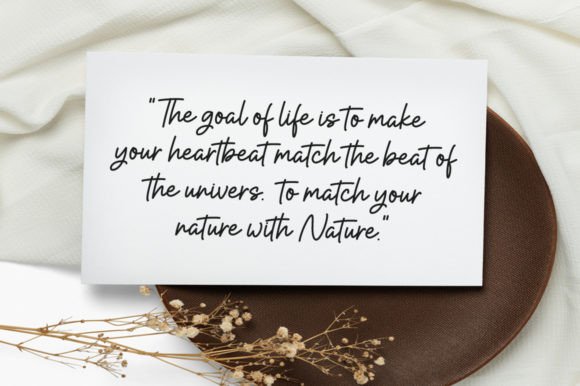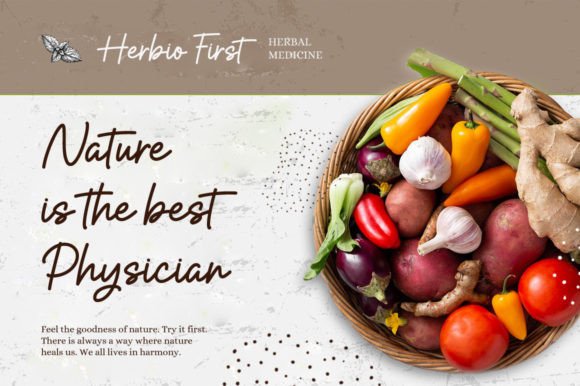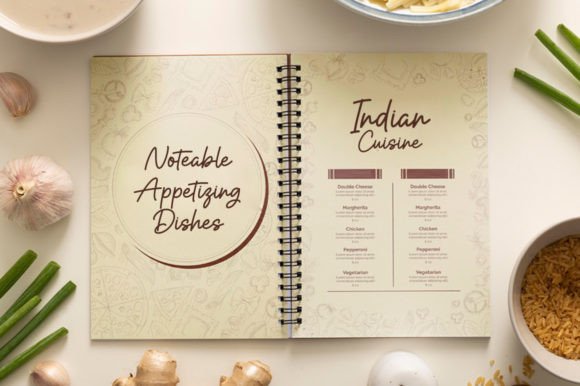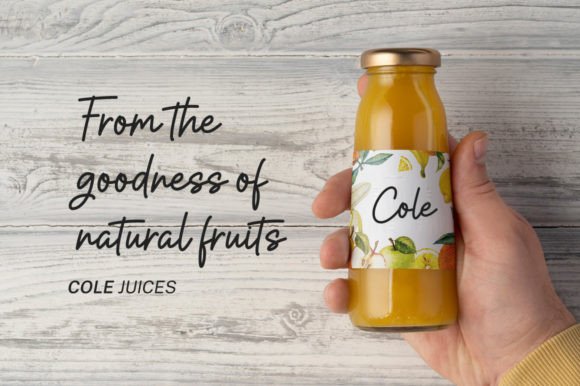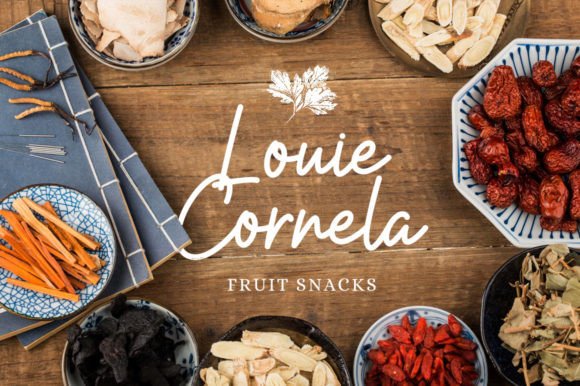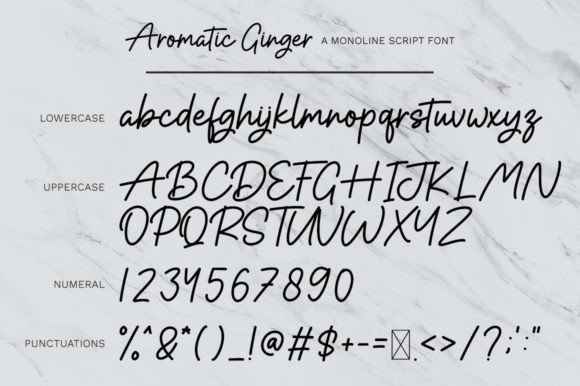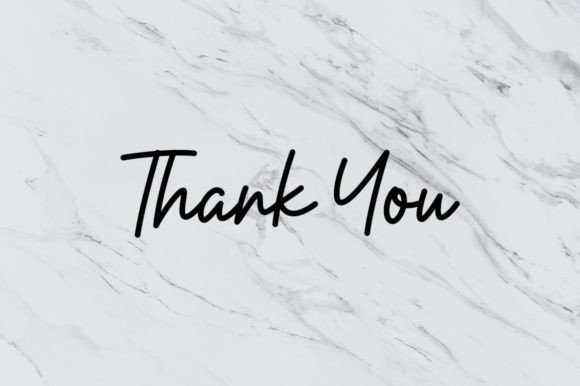
Aromatic Ginger Font
About Aromatic Ginger Font
Aromatic Ginger is a beautiful, well-balanced, and graceful script font. It is defined by smooth curves and is perfect for fashion branding or editorial designs.